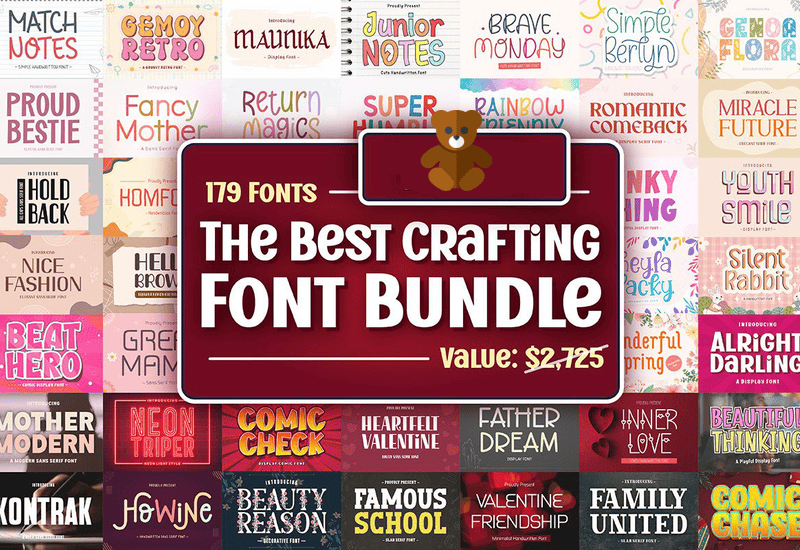
Transform your creative vision into reality with the Best Crafting Font Bundle, a stunning collection of 179 premium fonts. Designed for Windows, Linux, and Mac OS X, this bundle offers incredible variety, including decorative, serif, sans-serif, handwritten, and script fonts. Worth $2,725, it’s now available for free—but only for a limited time. Whether you’re designing logos, invitations, social media posts, or branding materials, these fonts will make your projects stand out.
Create Stunning Designs with Versatile Fonts
From bold display styles to elegant scripts, this bundle provides the perfect font for any creative project. Enhance your work with the playful charm of Baby Turtle, the sleek minimalism of Hands Above, or the sophisticated flair of Lovely Memory Serif Font.
- Eightde Creative Sans-Serif-Schriftarten Schriftart
- Diamond Cartoon Display Font
- Nothing Broken Sans Serif Font
- Father Dream Display Font
- Comic Check Fontes de Exibição Fonte
- Sweety Christmas Display Font
- Could Bee Decorative Font
- Neon Triper Decorative Font
- Super Uncle Slab Serif Font
- Single Coffee Script & Handwritten Font
- Amazing Dino Czcionki Dekoracyjne Czcionka
- Winter Snowby Font Decorativi Font
- Impact School Fuentes Slab Serif Fuente
- Exclusive Workplace Czcionki Skryptowe Czcionka
- Return Magics Script & Handwritten Font
- Patriotic Awesome Display Font
- Over Reach Display Font
- Space Unicod Decorative Font
- Point Notes Script & Handwritten Font
- Vendor Slab Serif Font
- Quick Beauty Script & Handwritten Font
- Eanby Serif Font
- Genoa Flora Decorative Font
- Simple Berlyn Script & Handwritten Font
- Wait Here Slab-Serif-Schriftarten Schriftart
- Charming Birthday Display Font
- United Stars Font Decorativi Font
- Beauty Reason Decorative Font
- Nothing Creative Sans Serif Font
- Welcome Teachers Display-Schriftarten Schriftart
- Fancy Mother Sans Serif Font
- Pink Farm Display Font
- Heartfelt Valentine Sans Serif Fonts Font
- Baby Dragon Script & Handwritten Font
- Simple Pattern Decorative Font
- Amelia Style Script & Handwritten Font
- Bula Hope Decorative Font
- Honey Monday Sans Serif Font
- Retro Count Display Font
- Beautiful Thinking Display Font
- Christmas Everybody Script & Handwritten Font
- Give Respect Script & Handwritten Font
- Baby Turtle Decorative Font
- Hustle Kindness Slab-Serif-Schriftarten Schriftart
- Mother Modern Sans Serif Font
- Parenting Teenagers Script & Handwritten Font
- Mother Hugging Display Font
- Kindergarten Education Sans Serif Font
- Hand Bunny Display-Schriftarten Schriftart
- Hold Back Sans Serif Font
- Beat Hero Display Font
- Joyful Promise Fuentes Caligráficas Fuente
- Father Leader Czcionki Bezszeryfowe Czcionka
- Yellow Beach Sans Serif Font
- Fall Down Display Font
- Why Notes Czcionki Skryptowe Czcionka
- Hurry Display Font
- Junior Notes Script & Handwritten Font
- Match Notes Script & Handwritten Font
- Clean Heart Display Font
- Show Comic Display Font
- Gemoy Retro Display-Schriftarten Schriftart
- Nice Fashion Fontes Sans Serif Fonte
- Woody Emyne Decorative Font
- Magic Love Decorative Font
- Cemyla Story Serif Font
- Chat Story Sans Serif Fonts Font
- Easter Funday Display Font
- Silent Rabbit Script & Handwritten Font
- Garden Farmer Sans Serif Font
- Lucky Master Czcionki Skryptowe Czcionka
- Milk Hunter Font Display Font
- Smyle Display Font
- Come Again Display Font
- Proud Bestie Sans Serif Font
- Super Humble Display Font
- Viralocal Czcionki Skryptowe Czcionka
- Teacher Flowers Czcionki Skryptowe Czcionka
- Jingle Noels Decorative Font
- Kontrak Sans Serif Fonts Font
- Mister Shine Skript-Schriftarten Schriftart
- Click Love Polices d’Affichage Police
- Aroma Lovers Display Font
- Difficult Situations Display Font
- Maunika Display-Schriftarten Schriftart
- Share Ideas Fuentes Display Fuente
- Bunny Easter Decorative Font
- Meria Story Display Font
- Gracela Mersa Decorative Font
- Shalye Script & Handwritten Font
- Brave Monday Polices Manuscrites Police
- Alright Darling Display Font
- Famous School Slab-Serif-Schriftarten Schriftart
- Jokes for Kids Script & Handwritten Font
- Retro Father Display Font
- Romantic Comeback Polices Sérif Police
- Beautiful in Its Time Polices Sans Sérif Police
- Youth Smile Display-Schriftarten Schriftart
- Easy Easter Display Font
- Nomore Display-Schriftarten Schriftart